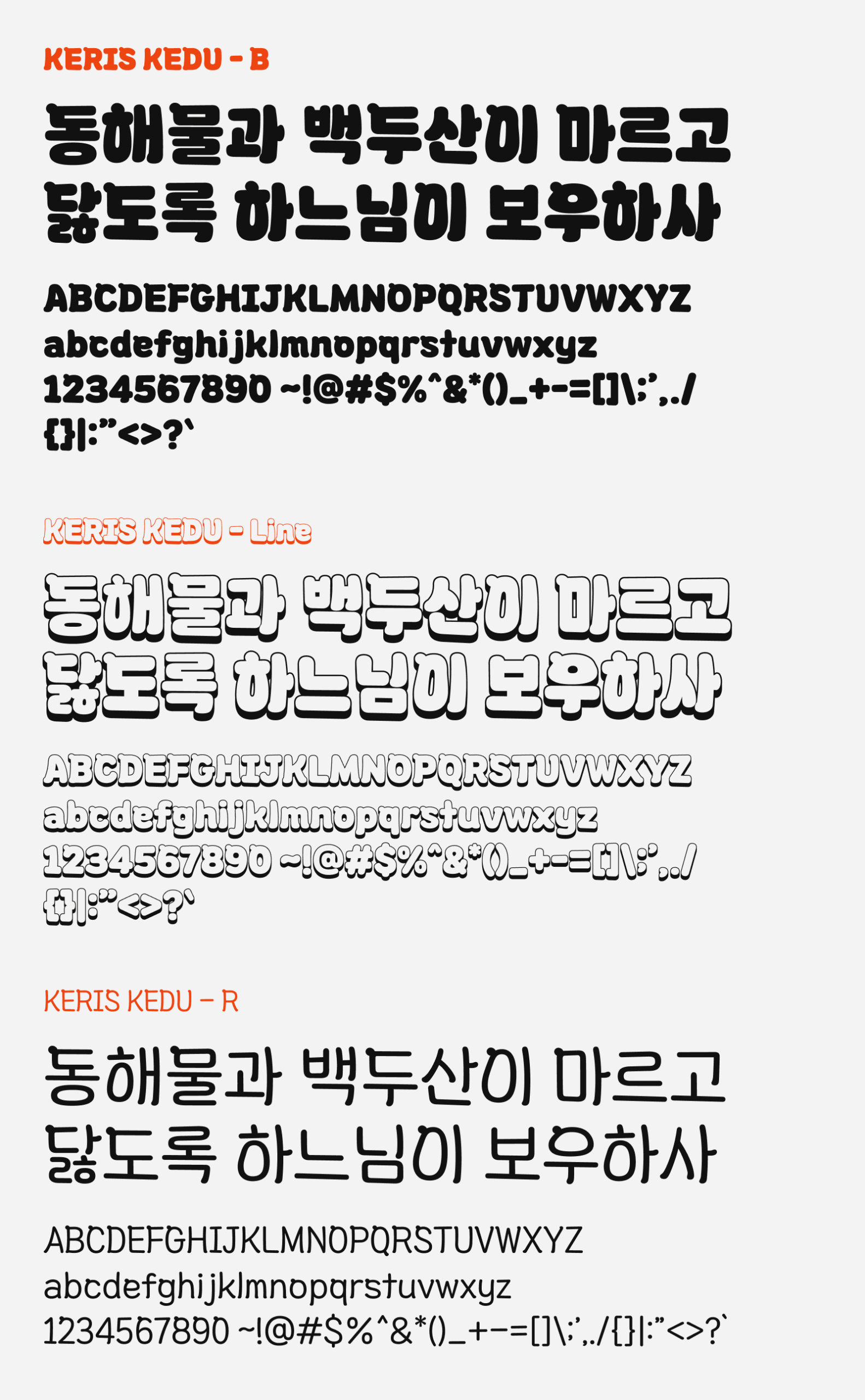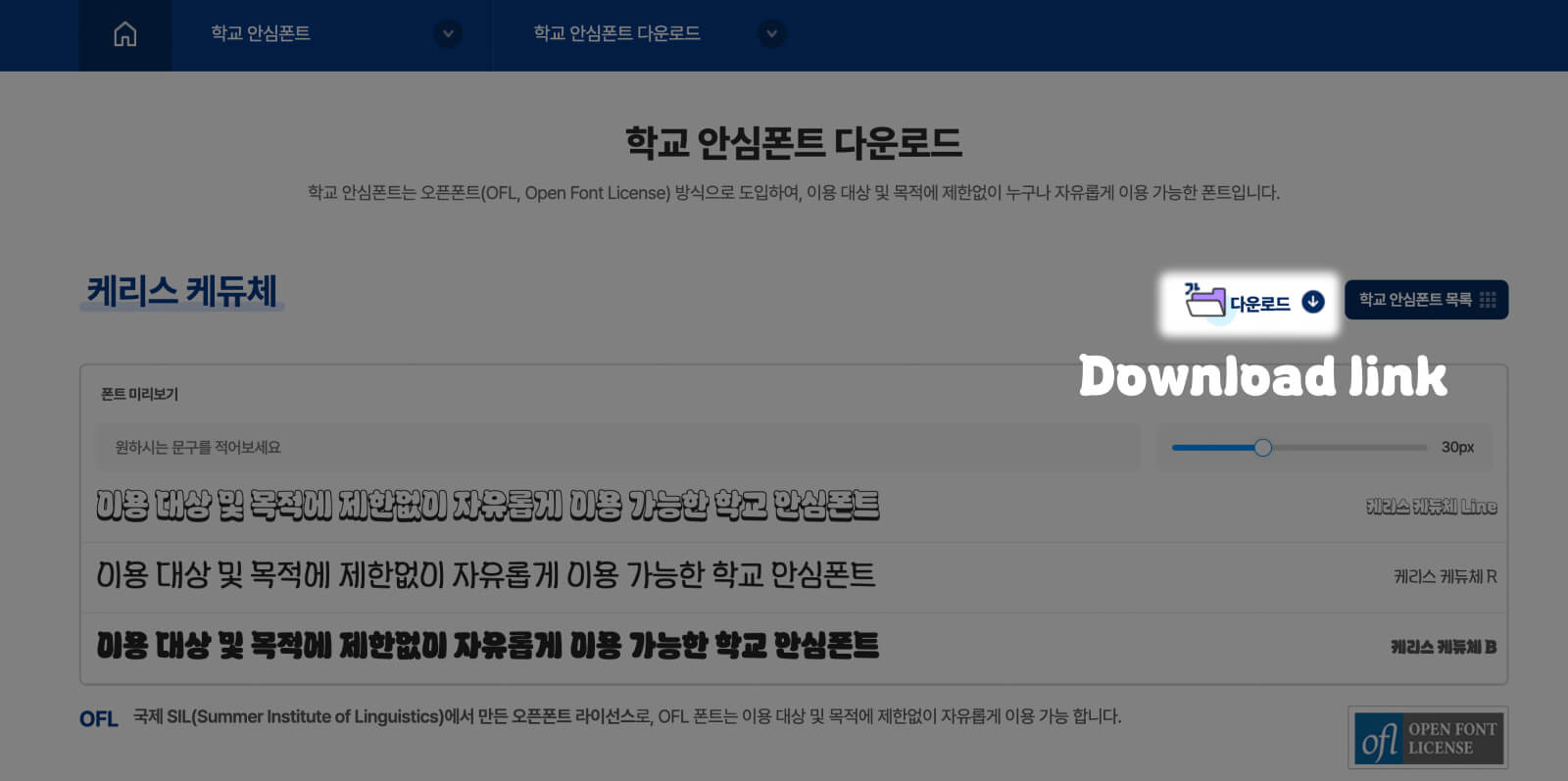
KERIS KEDU
KERIS KEDU (케리스 케듀체) is a cute and chubby free Korean font that you can download. It was a font family created to capture the appearance of the KERIS’s (Korea Education and Research Information Service) character named K-EDU that looks like a snow bear, by featuring its perky ear, chubby belly and feet into the letters. I particularly really liked how the ears are being incorporated into the letters, as it really enhances the cuteness of the letter design.
KERIS KEDU comes with three styles: the Bold weight, The Outline version and the Regular weight. Each style is highly distinctive and contrasty, making this font a fun font to play with. KERIS KEDU is one of the many fonts that are provided by Korea Education and Research Information Service (KERIS) through their Educational Copyright Support Center. “Hakgyoansim” means school safety, which means this font can be safely used on educational materials freely without any copyright compliance concern. Also, this font is released under SIL Open Font License, it can also be used on personal and commercial projects.